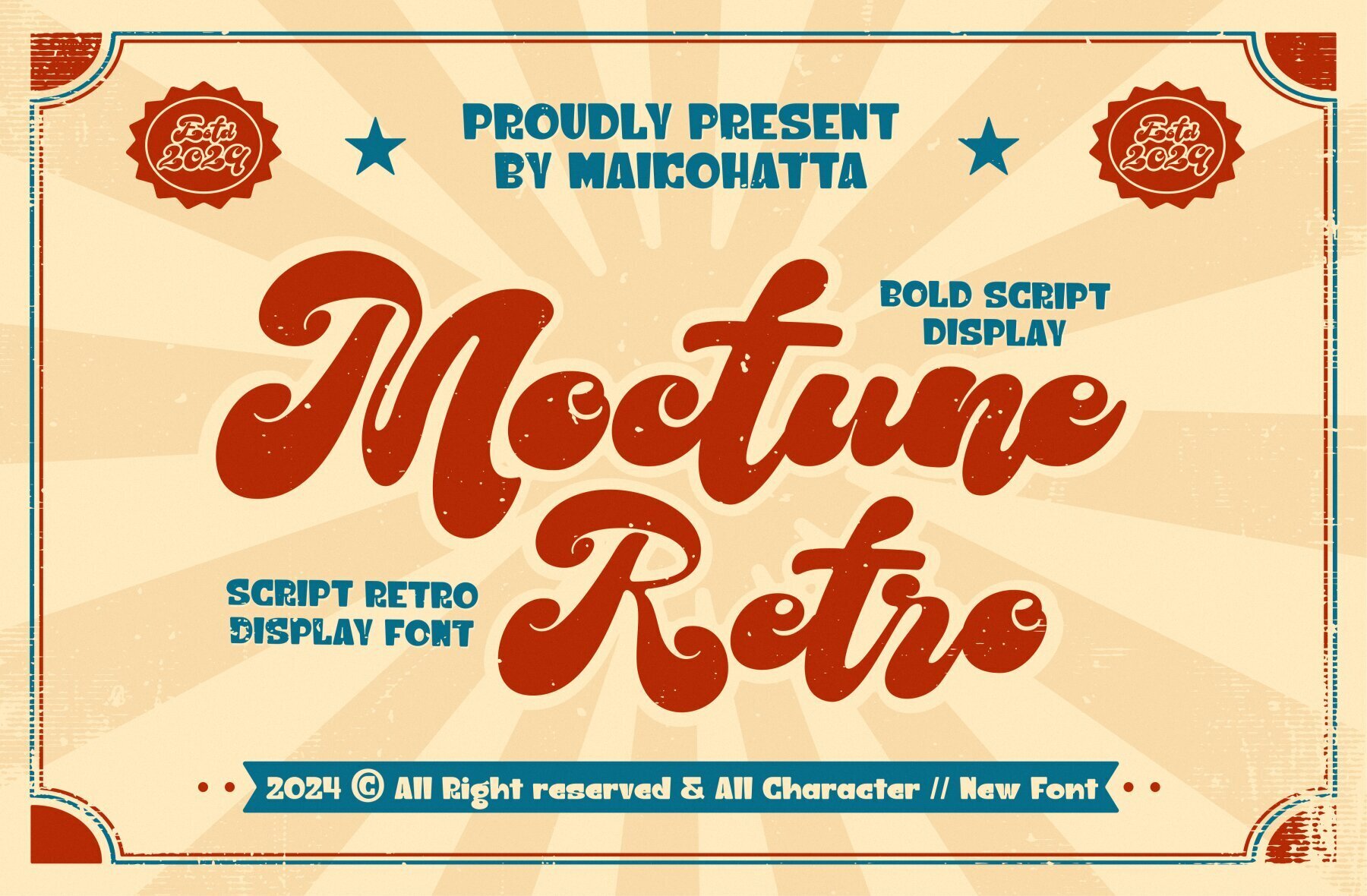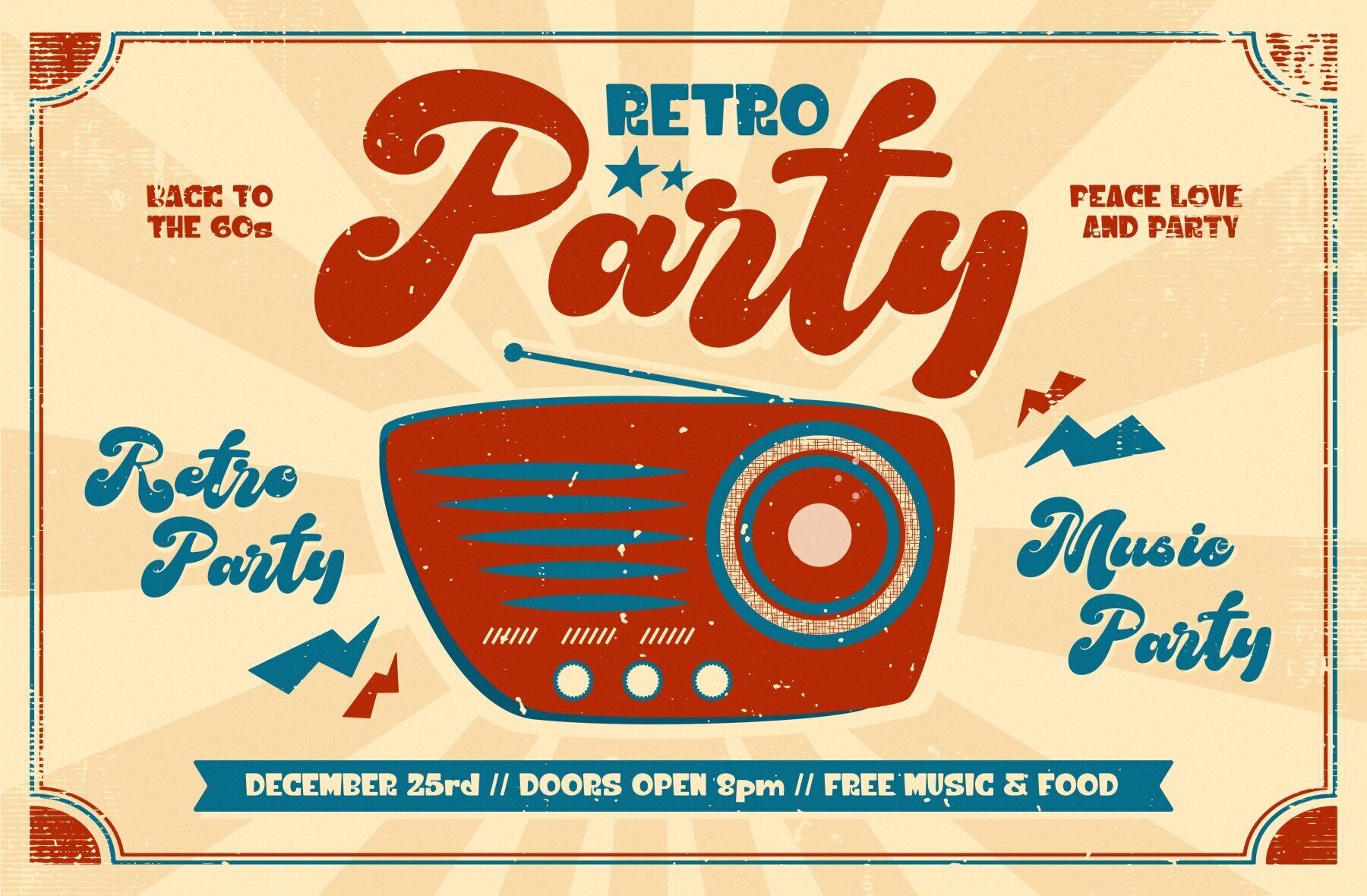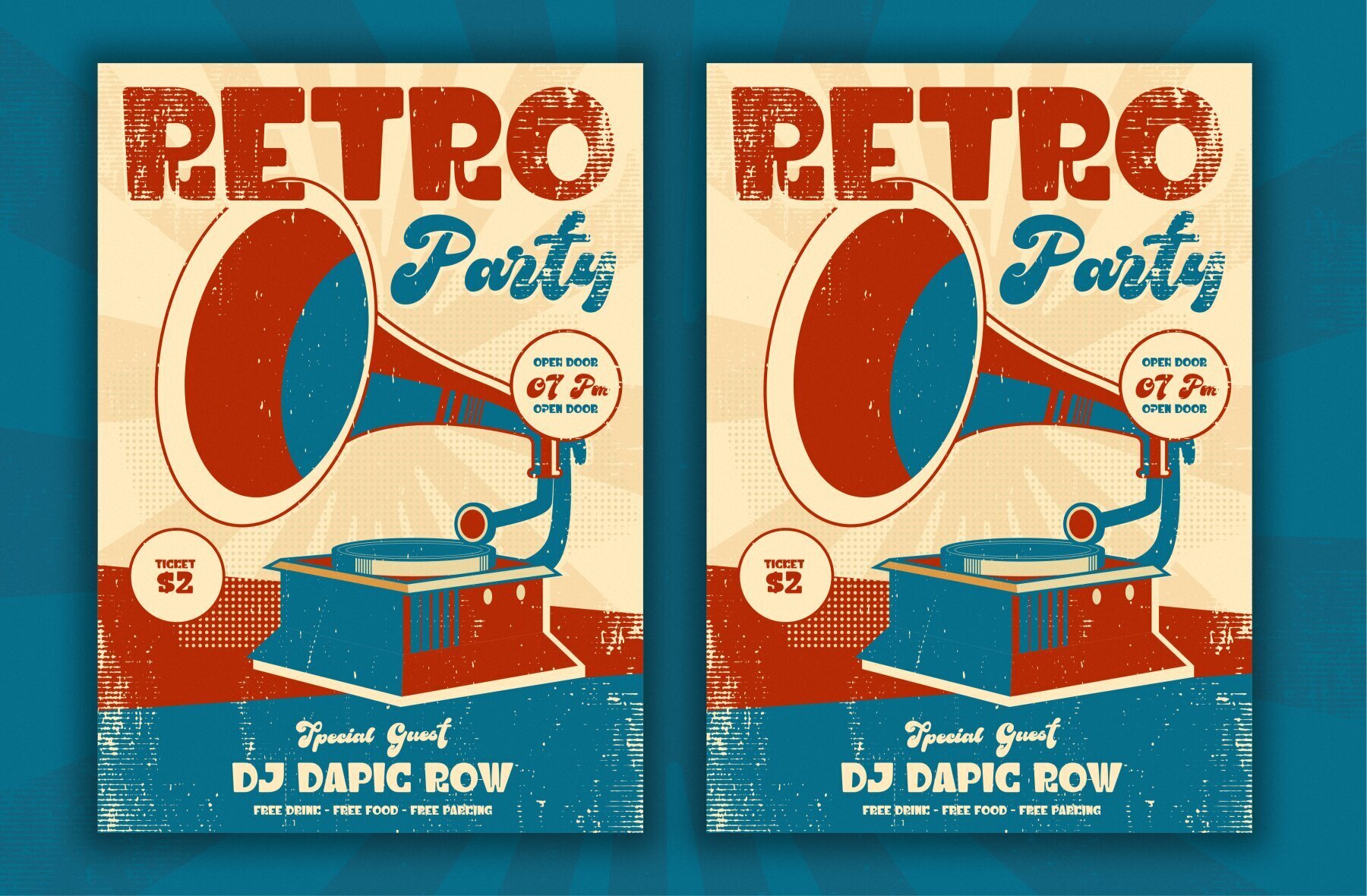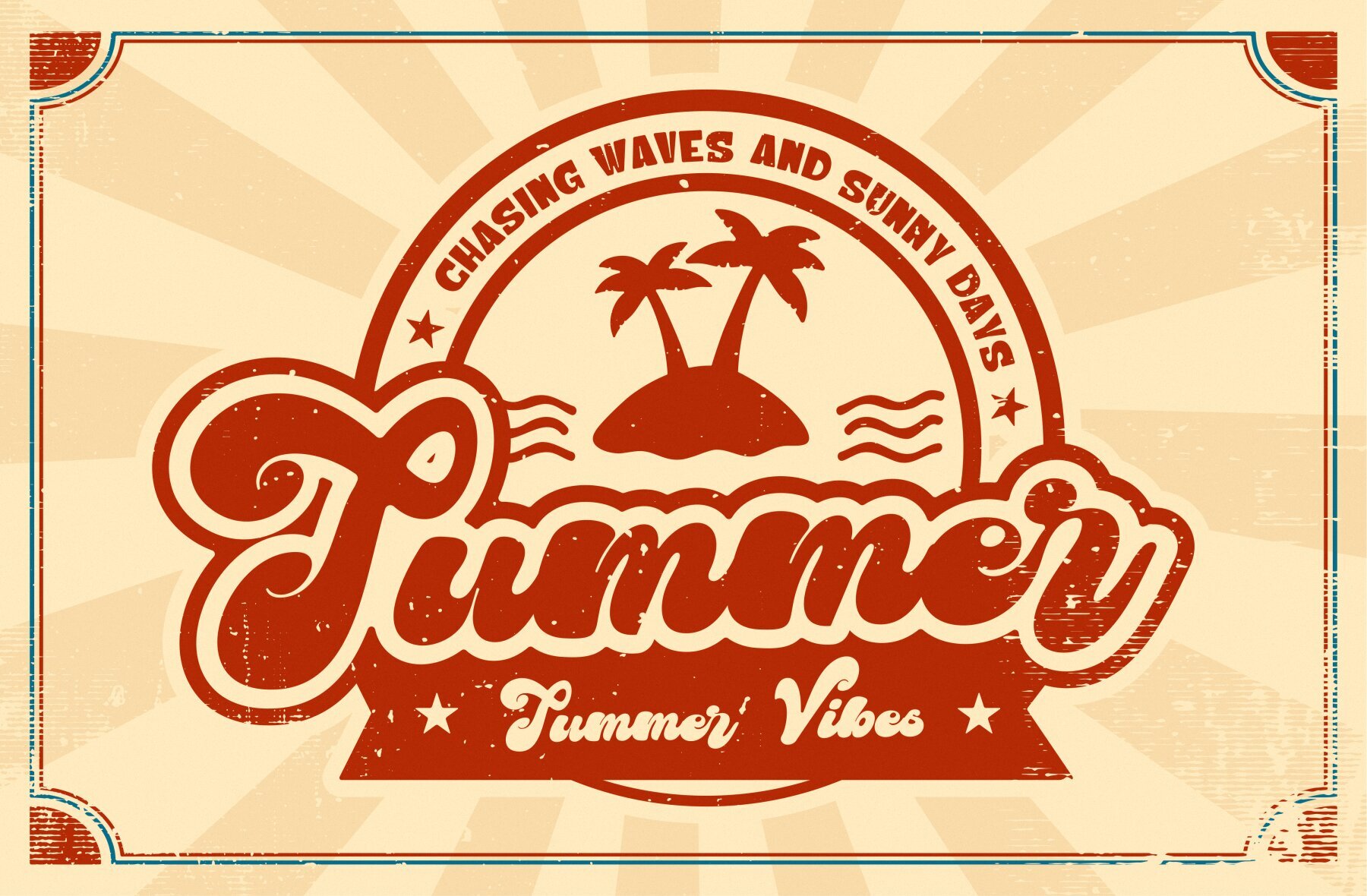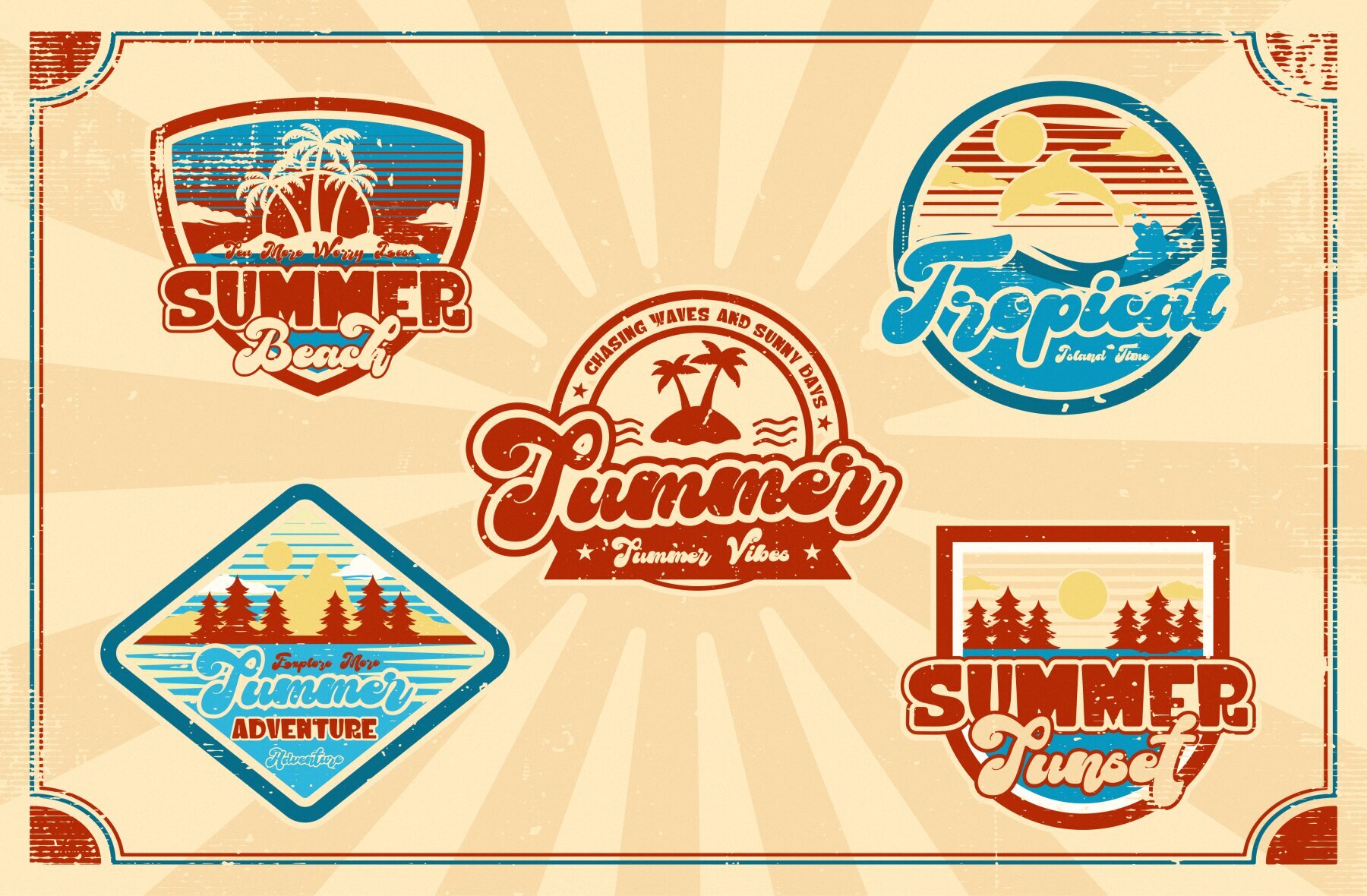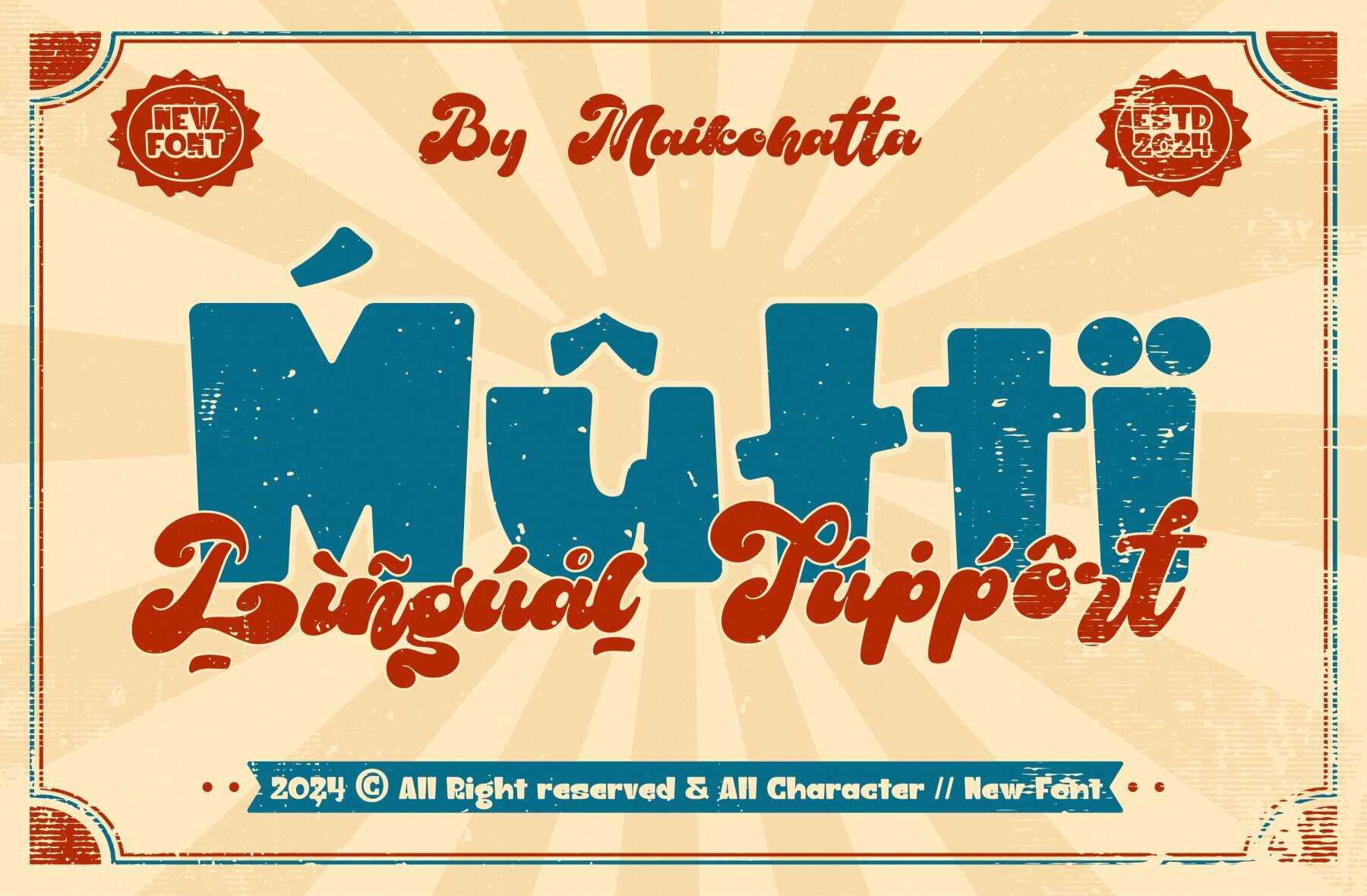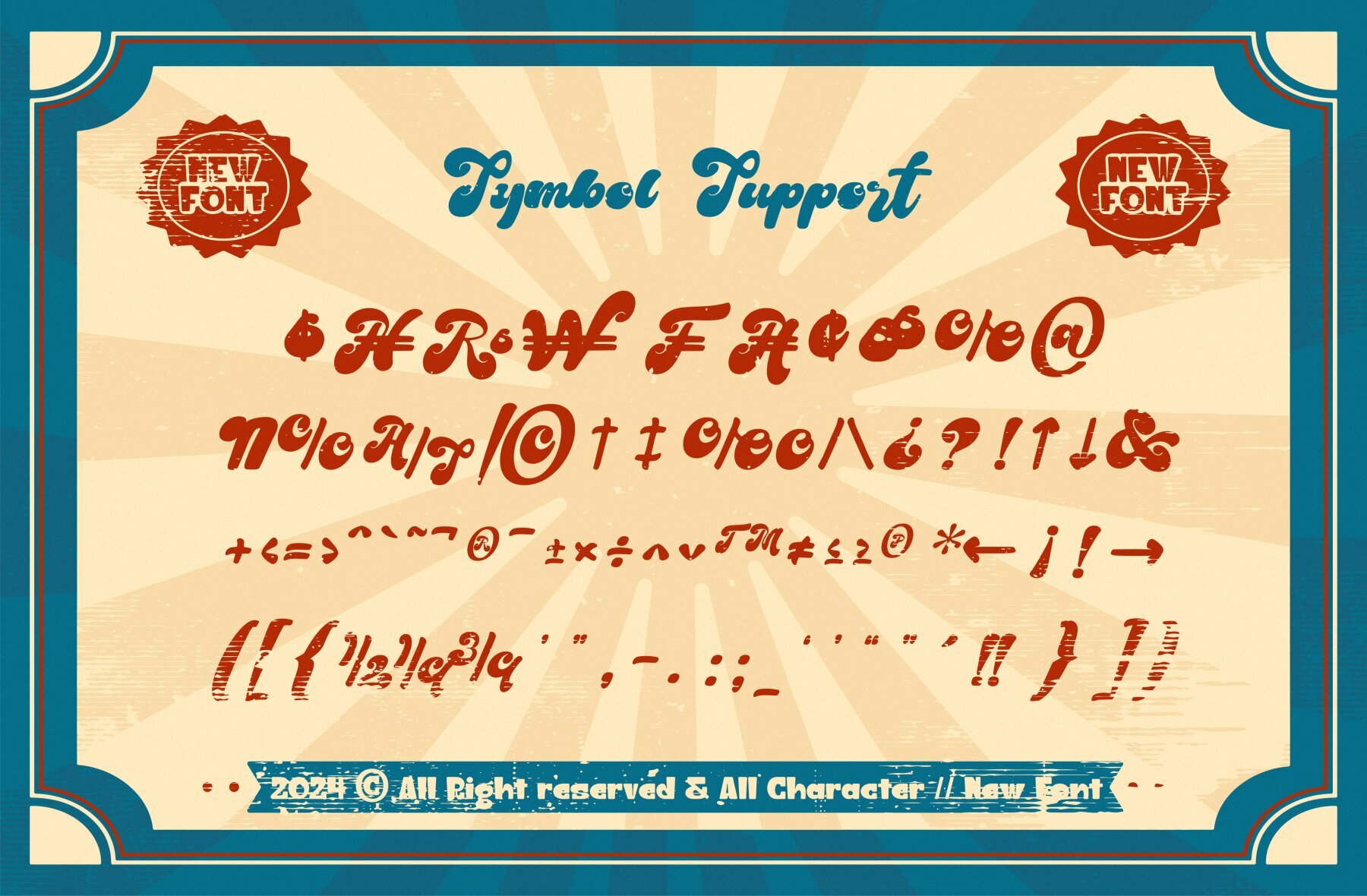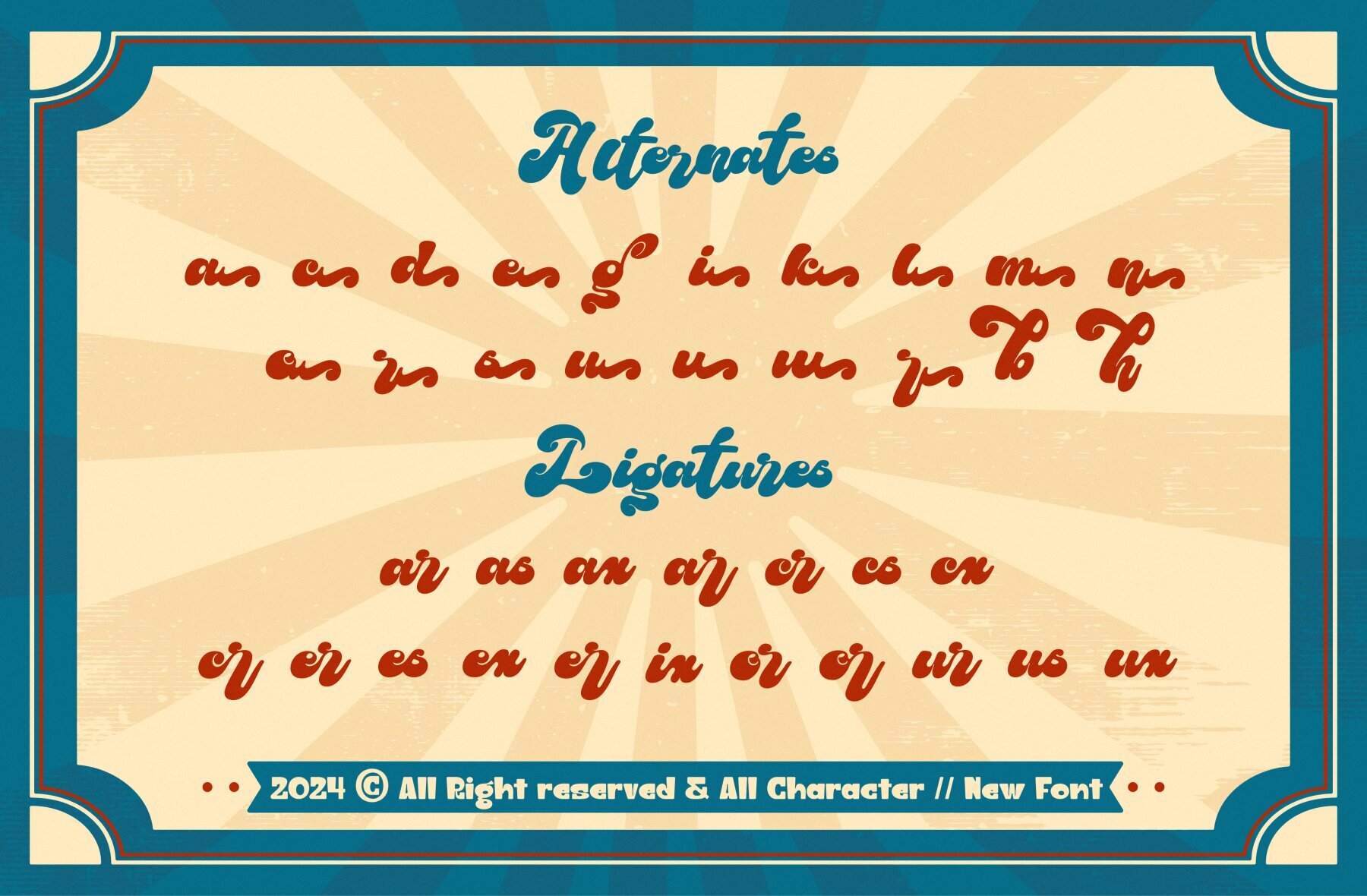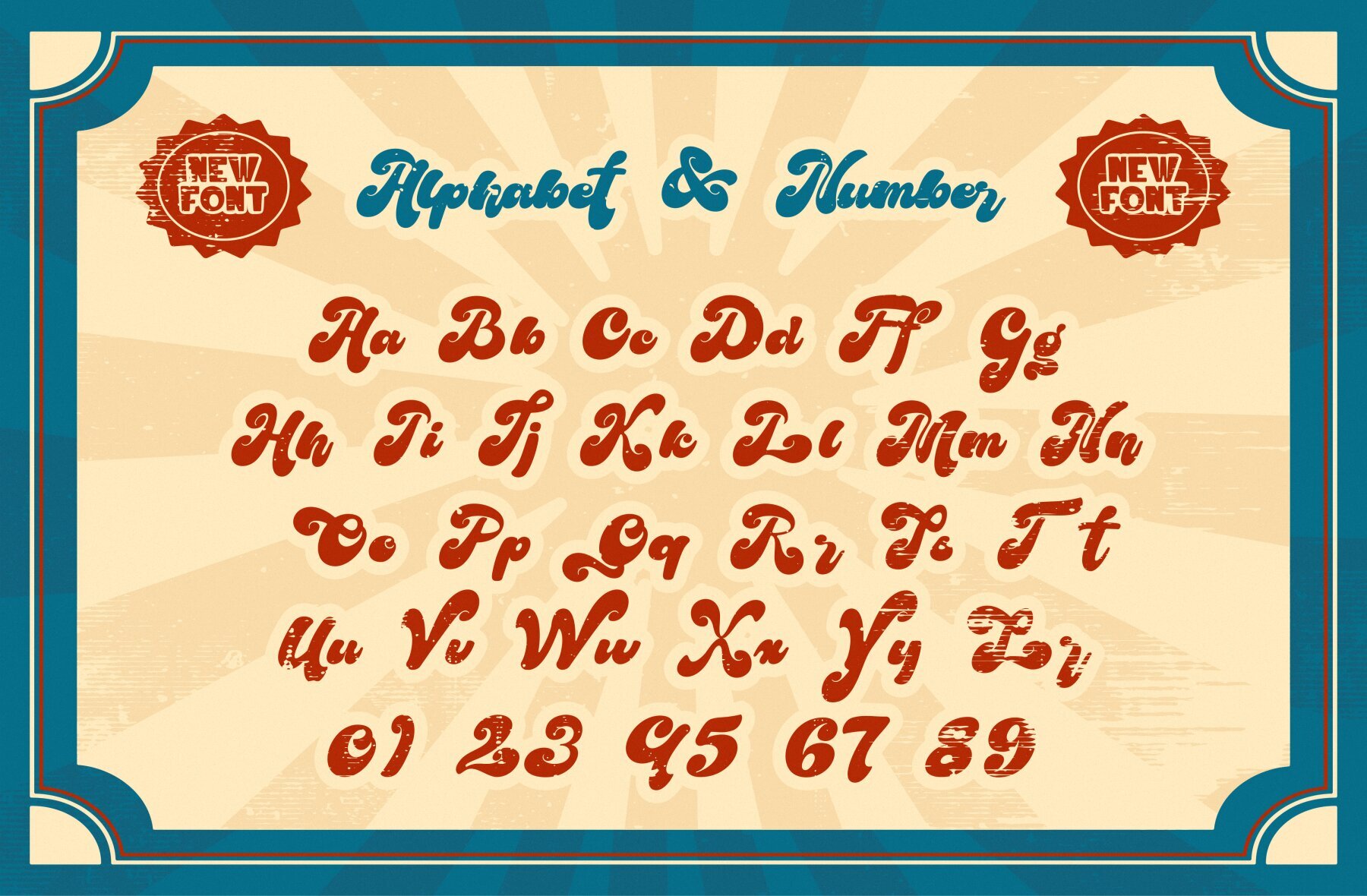
Moctune
Moctune is a versatile script retro display font that offers flexibility for various design applications. Its modern and clean aesthetic pairs well with contemporary graphic design projects and modern typography. With its simple yet visually appealing style, Moctune is an excellent choice for creating professional and striking designs.
This font includes a comprehensive set of features to enhance your design work. You'll find both uppercase and lowercase characters, as well as multilingual support, which ensures seamless integration across languages. The font also offers ligatures and alternates, providing additional creativity and customization options for your typography needs.